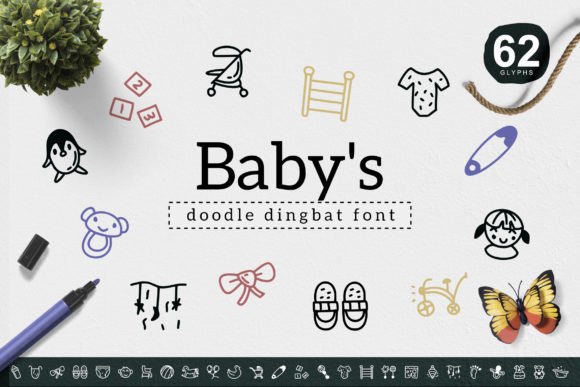
Baby’s Font: The Ultimate Dingbats Font for Creative Projects
Are you a designer, crafter, or DIY enthusiast looking for a fun and versatile font to add a personal touch to your projects? Look no further than Baby’s Font, a delightful dingbats font that’s perfect for a wide range of creative endeavors. In this article, we’ll explore the features and benefits of Baby’s Font, and show you how it can elevate your designs to the next level.
What is Baby’s Font?
Baby’s Font is a unique and charming dingbats font that’s designed to bring a smile to your face. With its playful and whimsical style, this font is ideal for creating eye-catching graphics, illustrations, and designs that are sure to delight. Whether you’re working on a project for a client or creating something for personal use, Baby’s Font is the perfect choice.
Features of Baby’s Font
• Fun and playful style: Baby’s Font features a delightful dingbats style that’s perfect for adding a touch of whimsy to your designs.
• High-quality characters: The font includes a wide range of characters, including letters, numbers, and symbols, all designed to look clear and crisp.
• Versatile: Baby’s Font can be used for a wide range of projects, from stickers and posters to t-shirts and cards.
Uses for Baby’s Font
Baby’s Font is a versatile font that can be used for a wide range of projects, including:
• Stickers: Add a personal touch to your stickers with Baby’s Font, perfect for labeling gifts, creating party favors, or making DIY crafts.
• Posters: Create eye-catching posters with Baby’s Font, ideal for advertising events, promoting products, or showcasing your artwork.
• T-shirts: Design custom t-shirts with Baby’s Font, perfect for creating fun and quirky apparel for kids and adults alike.
• Cards: Add a personal touch to your greeting cards with Baby’s Font, ideal for birthdays, holidays, or special occasions.
• Apparel graphics: Use Baby’s Font to create custom graphics for apparel, such as hoodies, hats, or bags.
Benefits of Using Baby’s Font
So why choose Baby’s Font for your next project? Here are just a few benefits of using this delightful dingbats font:
• Adds a personal touch: Baby’s Font adds a unique and playful touch to your designs, making them stand out from the crowd.
• Versatile: Baby’s Font can be used for a wide range of projects, making it a great addition to your font library.
• High-quality: The font features high-quality characters that are designed to look clear and crisp, even at small sizes.
Tips for Using Baby’s Font
Here are a few tips for getting the most out of Baby’s Font:
• Experiment with different colors: Baby’s Font looks great in a variety of colors, so don’t be afraid to experiment and find the perfect hue for your project.
• Combine with other fonts: Try pairing Baby’s Font with other fonts to create a unique and eye-catching design.
• Use for kids’ projects: Baby’s Font is perfect for kids’ projects, such as creating stickers, coloring pages, or activity sheets.
Font Name Baby’s Font
Author YandiDesigns
In conclusion, Baby’s Font is a fun and versatile dingbats font that’s perfect for a wide range of creative projects. With its playful style, high-quality characters, and ease of use, this font is a great addition to any designer’s or crafter’s toolkit. Whether you’re working on a project for a client or creating something for personal use, Baby’s Font is sure to bring a smile to your face and a touch of whimsy to your designs.